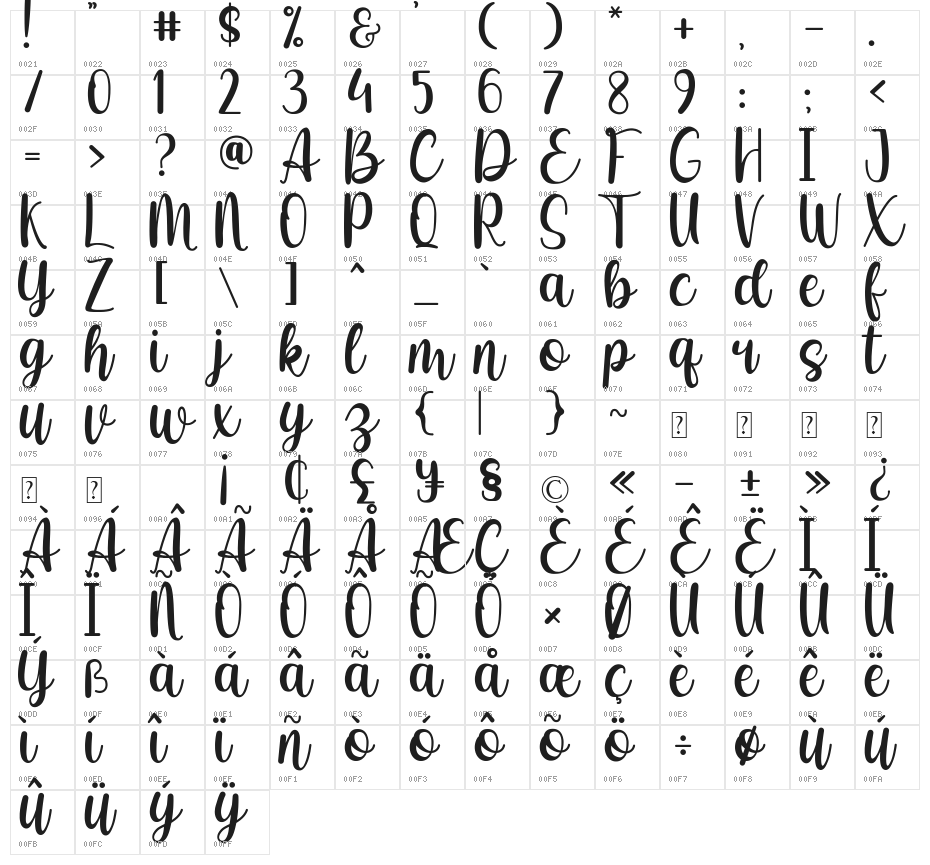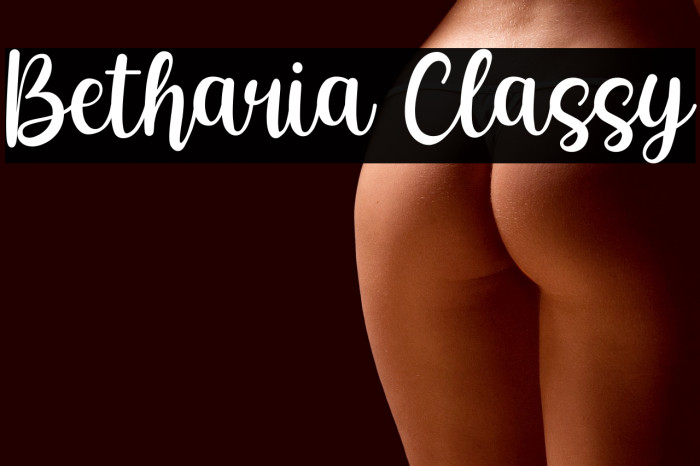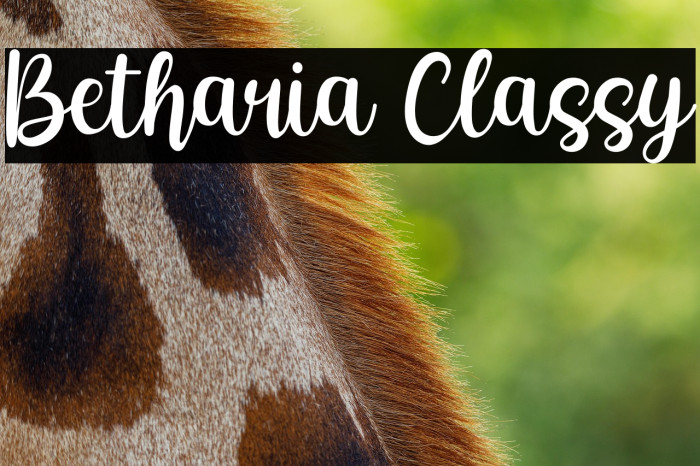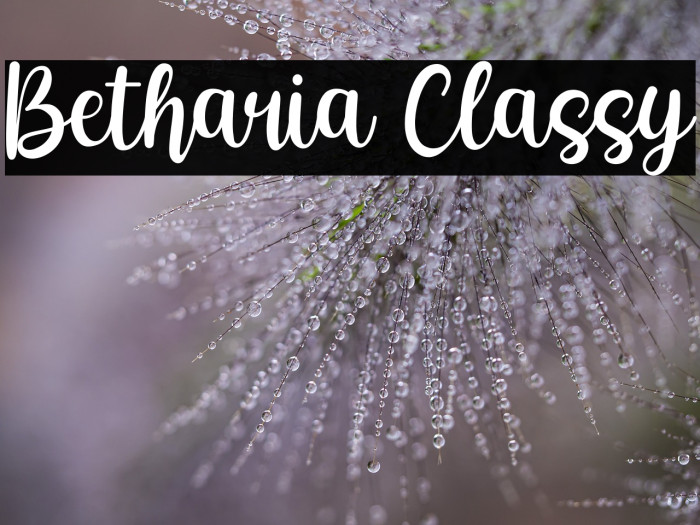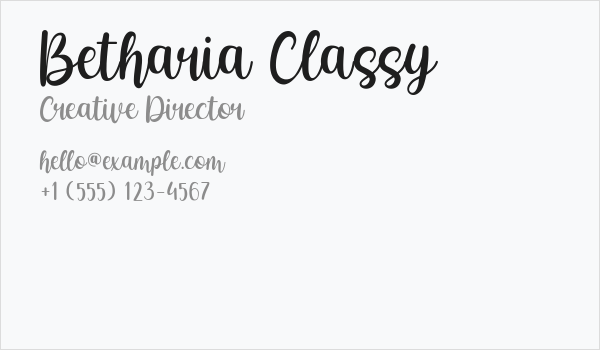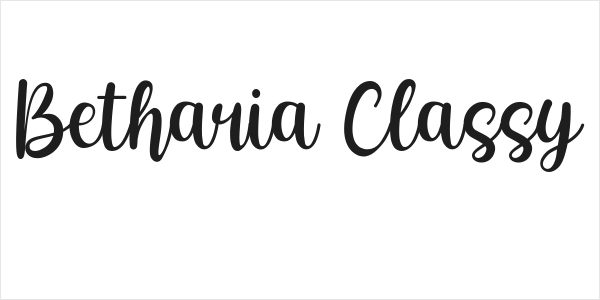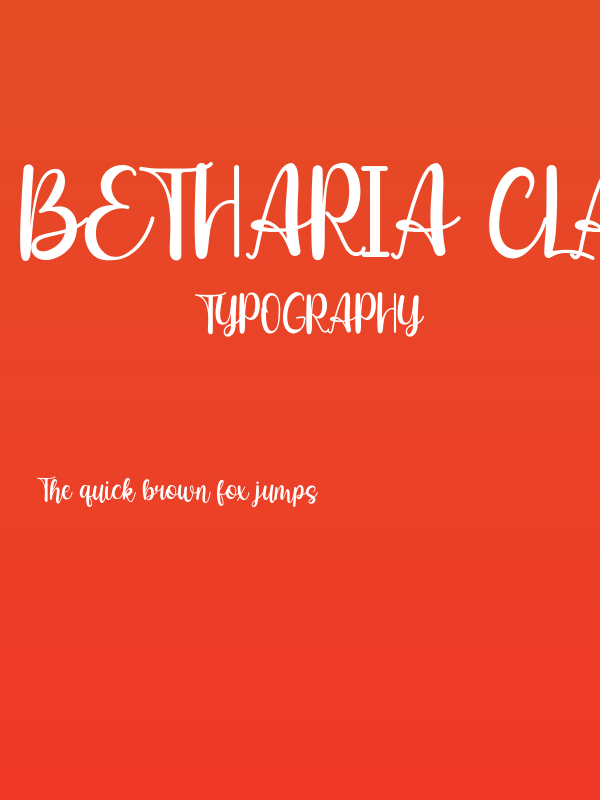
Betharia Classy Font
Betharia Classy Description
This font exudes a playful yet elegant style, characterized by its flowing script and smooth curves. The uppercase letters are bold and expressive, with unique flourishes that add a touch of sophistication. The lowercase letters maintain a consistent rhythm, enhancing readability while retaining a whimsical charm. The numerals are clear and distinct, complementing the overall aesthetic. Special characters are thoughtfully designed, ensuring versatility across various applications. The font's balance between boldness and elegance makes it suitable for a wide range of creative projects.
| Use Case | Logos, Invitations, Decorative Text |
| Proposed Projects | Ideal for wedding invitations, branding, greeting cards, and decorative signage. |